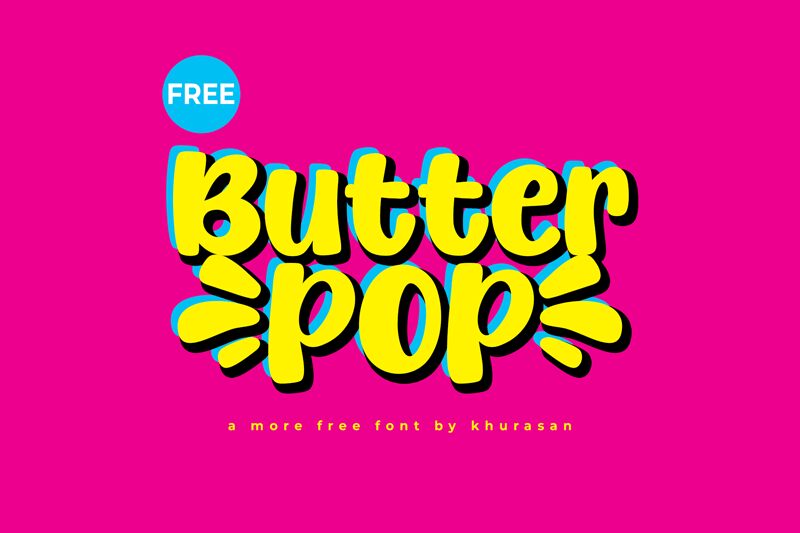
Butterpop font family by Khurasan™ offers an unleashing power of cartoon aesthetics into your design. This free font family contains two styles that can express your visuals in a colorful and lively way. With its unique yet friendly appeal, it presents itself as the perfect font to rock your school designs and projects.
Choose Butterpop for school projects, books illustrations, digital games, animated videos, product packaging, flashy signs, signage, branding, logos, captivating social media posts, professional presentation templates, and postcard designs. It’s also the key to commercial products, clothing, and sticker designs, sitting perfectly on any background!